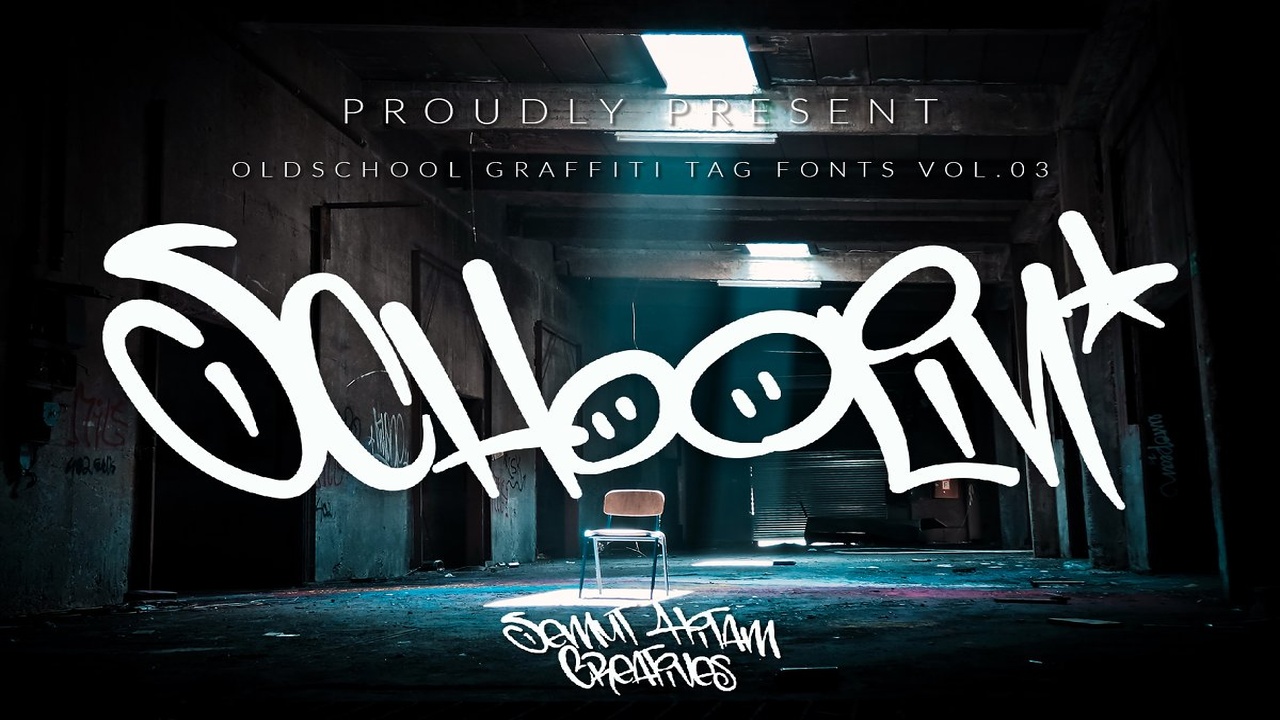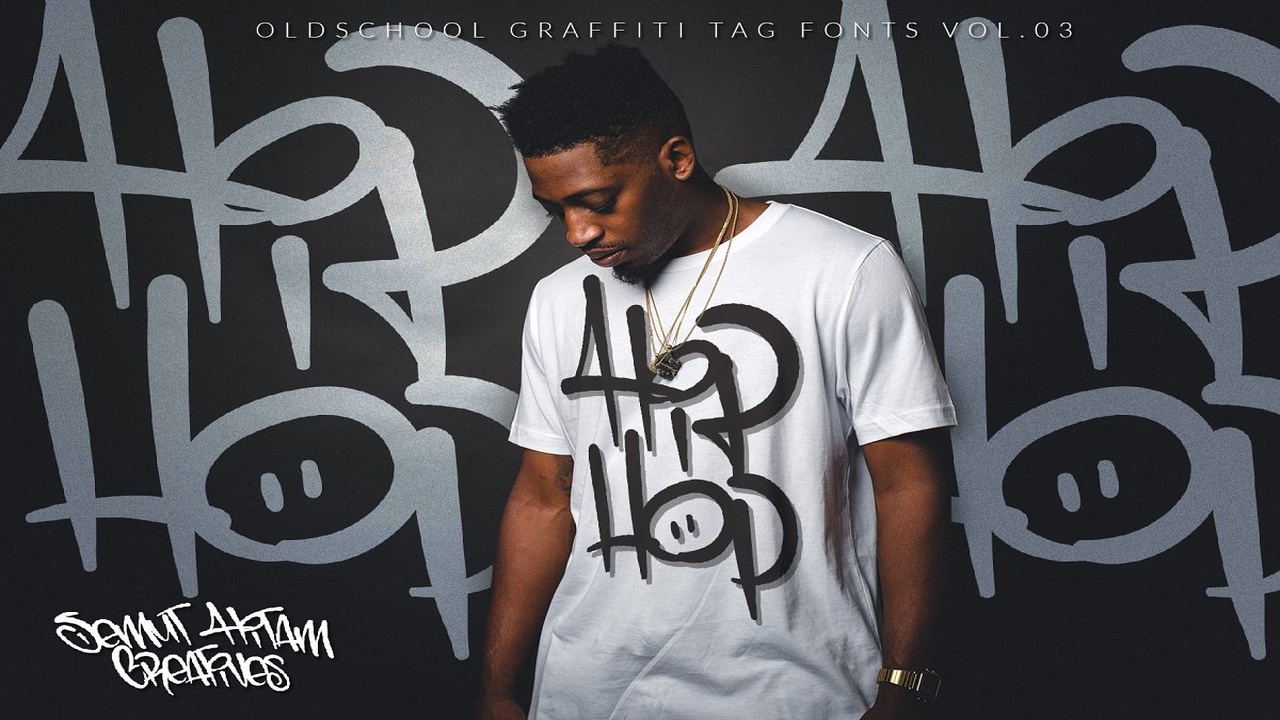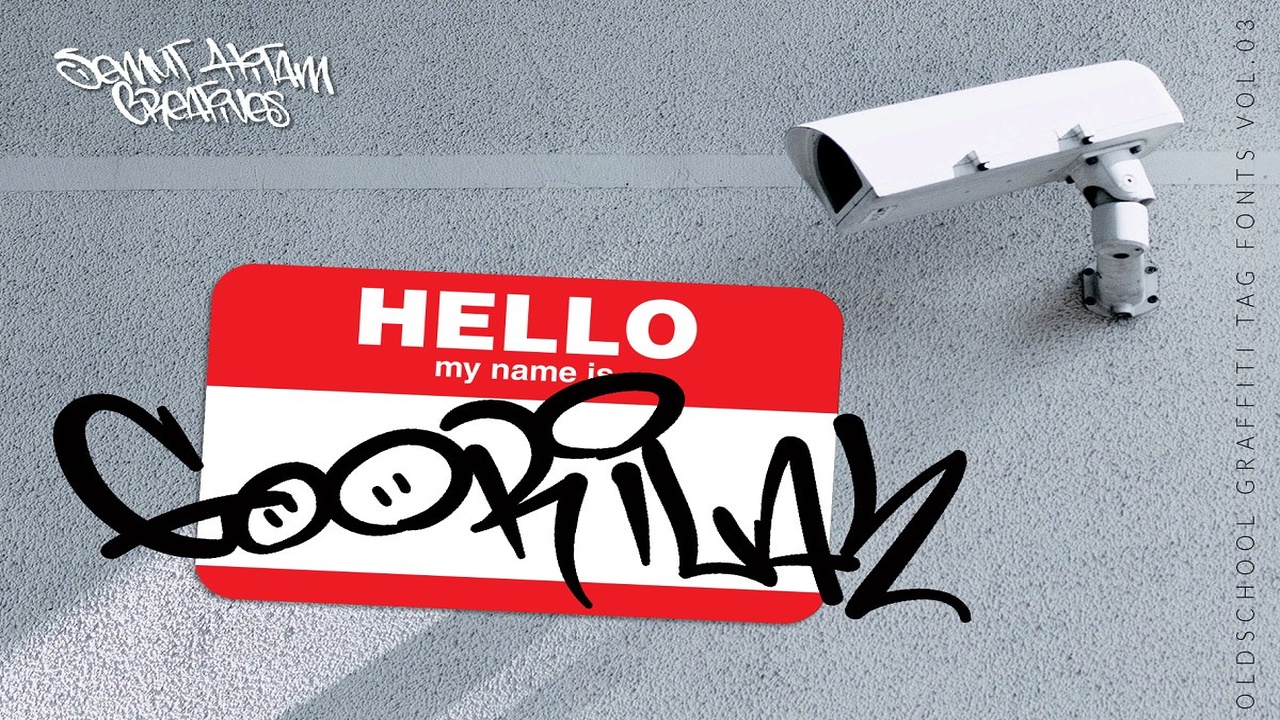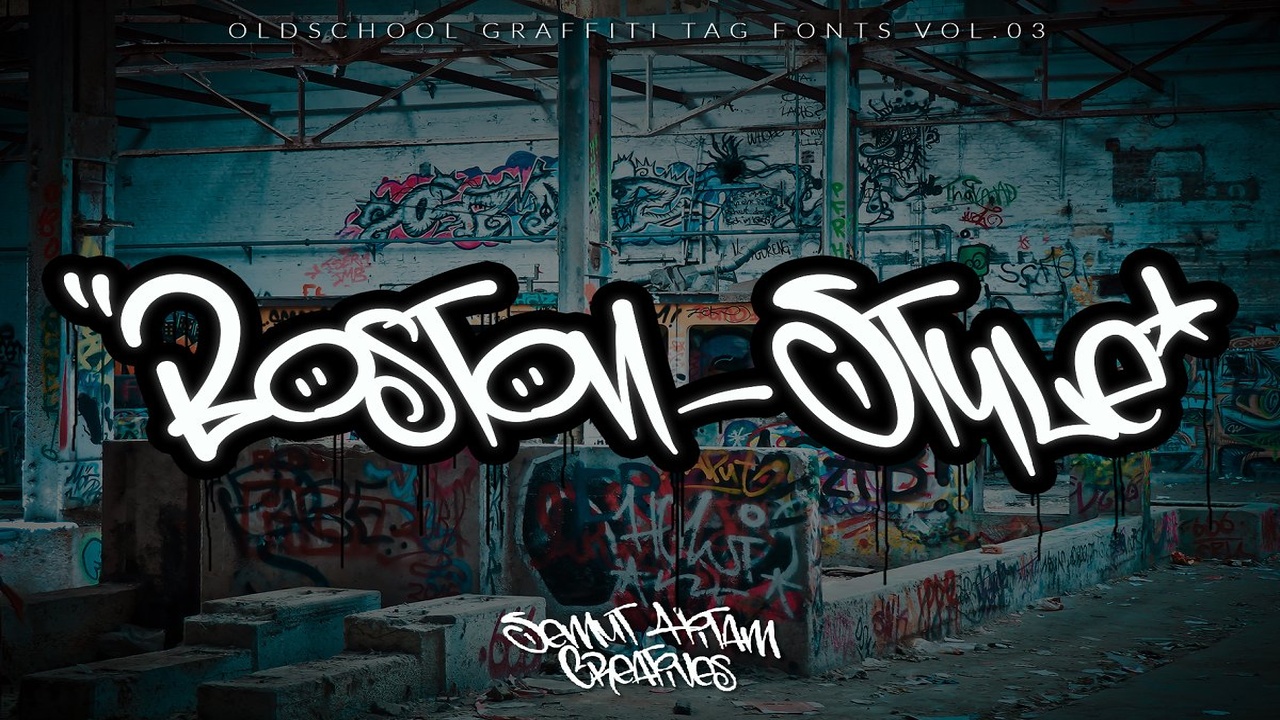
Schoolin Graffiti Font Family Free Download
About the Schoolin Graffiti Font
Schoolin is an another Oldschool Graffiti Tag Fonts, Back to Basic!!! For those of you who want a more funky design look, In the graffiti world, usually you’ll use the initials as a sign of your masterpiece, or you use it for a graffiti battle, Schoolin present to you, Inspired from old style graffiti tagging, Schoolin Includes full set of funky uppercase, lowercase letters, numbers, punctuation, multilingual language and various ligatures